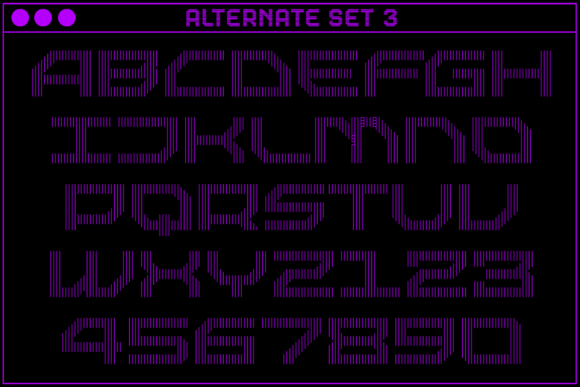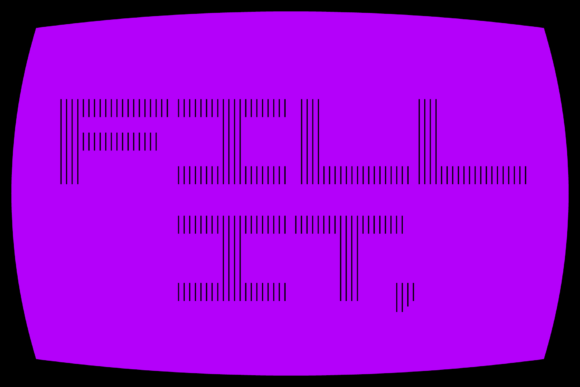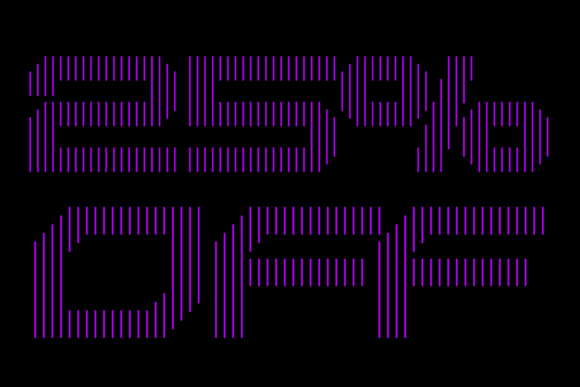
Introduction to MultiType Lines Ample 3 Font
Have you ever stared at a blank canvas, waiting for the perfect spark to ignite your creative project? For designers, those moments of inspiration can be a game-changer. And what’s more inspiring than adding a unique touch to your design with a one-of-a-kind font?
Enter MultiType Lines Ample 3 Font – a cool, pixelated decorative font that’s sure to add a distorted and trendy twist to your designs. With its high-quality, PUA-encoded glyphs, you’ll have access to a world of creative possibilities. Whether you’re working on a project that requires a transparent background or a design that demands a bold statement, MultiType Lines Ample 3 Font is the perfect resource to elevate your work.
Key Features of MultiType Lines Ample 3 Font
• High-quality, hand-drawn design perfect for creative projects and design resources
• Transparent background option for seamless integration into various design elements
• Available in 3 different font styles, each with unique characteristics and flair
• Perfect for use in logos, typography, and other design elements requiring a creative touch
Honest Review: MultiType Lines Ample 3 Font
I recently stumbled upon the MultiType Lines Ample 3 Font while searching for a unique design resource to elevate my creative project. As a designer, I was excited to give it a try, and I’m happy to share my honest review.
• ✨ The font’s high quality is immediately noticeable, with crisp and clean lines that make it perfect for digital projects.
• ✨ The transparent background option allows for seamless integration with any design, making it a valuable asset for designers.
• ⚠️ The font’s limited character set may not be suitable for complex projects that require a wide range of characters.
• ⚠️ Some users may find the font’s style too minimalist, which may not appeal to those who prefer more ornate typography.
Overall, I’m impressed with the MultiType Lines Ample 3 Font. Its high quality and versatility make it an excellent addition to any designer’s toolkit. While it may not be perfect for every project, it’s definitely worth checking out for designers looking for a unique and free design resource.
Tips for Getting the Most Out of MultiType Lines Ample 3 Font
To get the most out of this font, use it in combination with other design elements, such as graphics and images, to create a visually appealing design.
MultiType Lines Ample 3 Font is commonly used in creative projects, such as:
Logo Design
Use the font to create a unique and eye-catching logo for your brand.
Graphic Design
Use the font to create custom graphics and illustrations for your designs.
Web Design
Use the font to create a high-quality website with a transparent background.